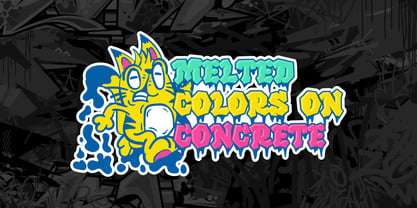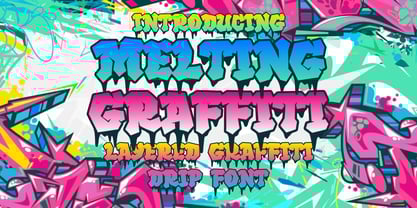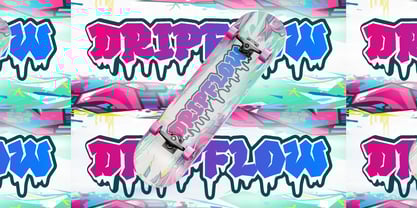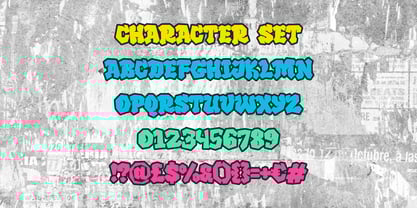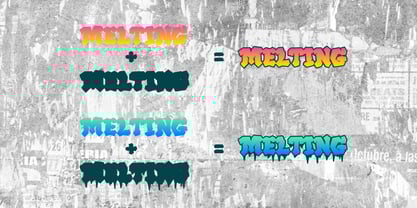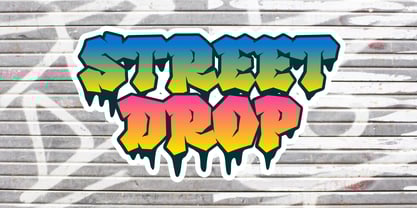
Melting Graffiti
by Shanaf
The Melting Graffiti Font Family was designed by Yesie Erma Yunita and published by Shanaf. Melting Graffiti contains 3 styles and family package options.
Bring urban energy and street-inspired style to your designs with Melting Graffiti, a vibrant layered drip graffiti font that truly captures the essence of city art culture. With bold, edgy letters, the font showcases sharp angular forms, thick strokes, and uniquely eye-catching melting drips that make every character appear as if fresh paint is dripping right off the surface. This font brilliantly combines a dynamic graffiti look with a visually compelling melting effect, making it perfect for projects that need an urban, artistic, and youthful vibe.
Melting Graffiti is particularly effective for impactful designs such as streetwear branding, skateboards, posters, event flyers, stickers, logos, and album covers. Its layered capabilities allow for creative versatility, enabling users to mix and match vibrant colors for standout results. Whether used digitally or in print, this distinctive drip style ensures that your design commands attention. Ideal for street-inspired art, fashion statements, or bold branding initiatives, Melting Graffiti is the ultimate font choice for creatives looking to inject powerful, urban personality into their visual projects.